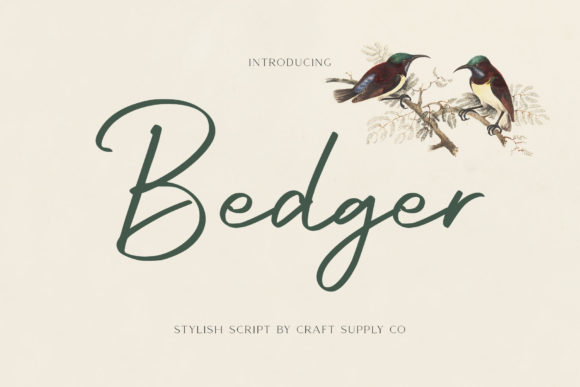
Adorn your designs with the charm and elegance of Bedger Font, a captivating script font family crafted by craftsupplyco. This font is a masterpiece of beauty and imagination, designed to transform your words into exquisite works of art.
Immerse yourself in the whimsical world of Bedger Font, where every letter dances with grace and fluidity. Its enchanting strokes will add a touch of magic to your wedding place cards, invitations, and other special creations. Picture your guests' eyes sparkling with delight as they admire the exquisite script adorning their names.
Bedger Font is not merely a font; it's an expression of your heartfelt emotions. Its delicate curves and playful loops will infuse your designs with a sense of warmth and intimacy. Whether you're creating personalized gifts, heartfelt letters, or stunning social media posts, Bedger Font will amplify your message and make your words resonate with your audience.
Unleash your creativity and explore the endless possibilities that Bedger Font offers. With its versatility and charm, this font will elevate your designs to new heights. It's perfect for a wide range of projects, from delicate wedding stationery to eye-catching logos and branding materials.
Step into the realm of elegance and sophistication with Bedger Font. Let its enchanting script grace your designs and captivate your audience. Embrace the beauty of handwritten artistry and turn your creative visions into breathtaking realities.